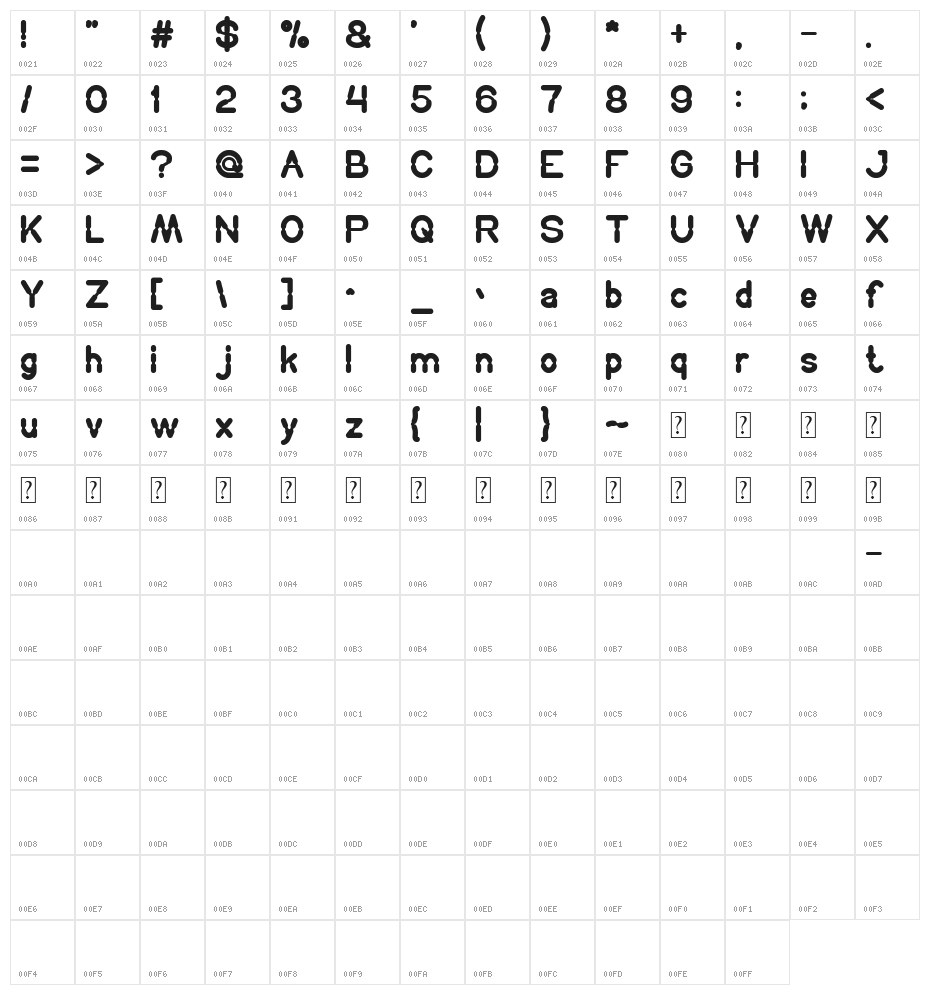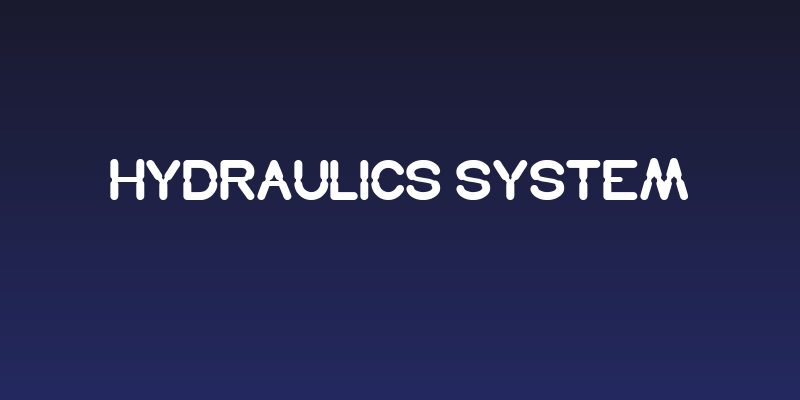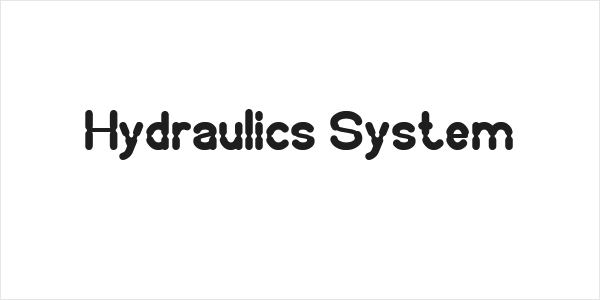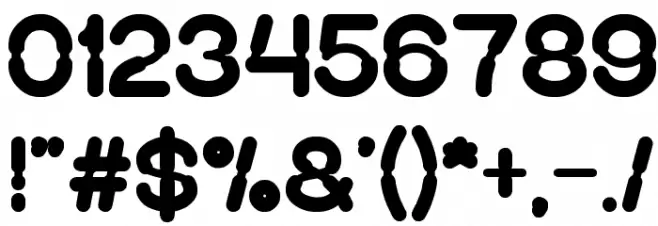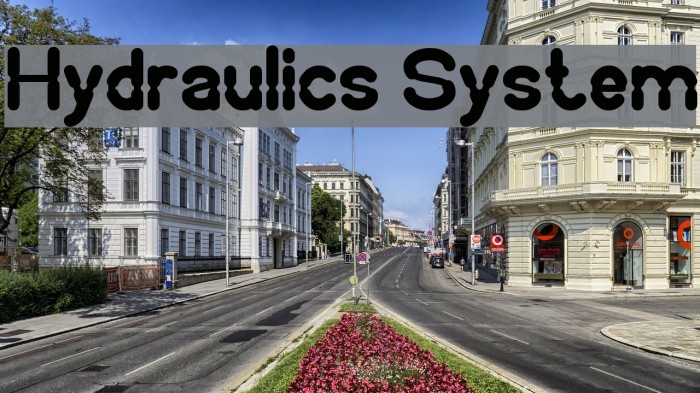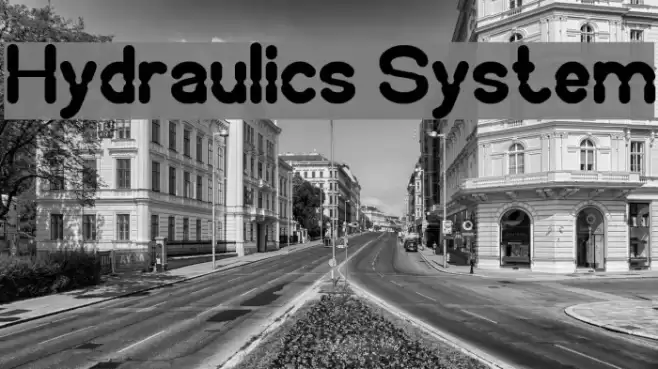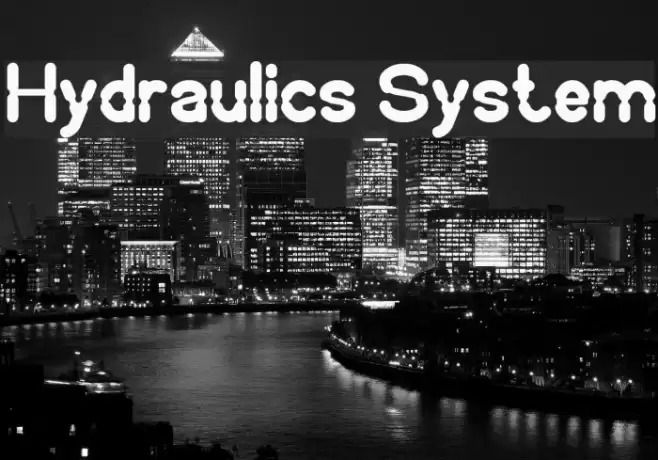
Hydraulics System Font
Hydraulics System Description
This font features a bold and rounded style, characterized by its thick, uniform strokes and smooth curves. The letters are evenly spaced, providing a balanced and cohesive appearance. The uppercase and lowercase letters maintain a consistent design, enhancing readability while adding a playful and modern touch. The numerals and special characters follow the same design principles, ensuring a harmonious look across all elements. This font is well-suited for projects that require a friendly and approachable aesthetic.
| Proposed Projects | Ideal for children's books, playful branding, posters, and digital media where a friendly tone is desired. |